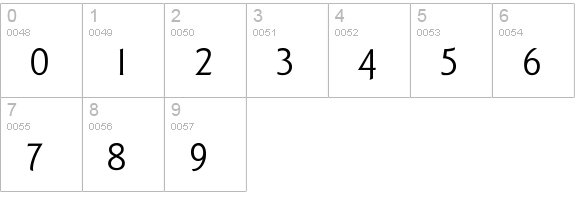
Goudy Sans* Book Font Details
Goudy Sans* Book is a comfortable, highly readable variant in the Goudy typeface family \xE2\x80\x94 well suited to long-form body text, articles, and editorial content.
Goudy Sans* Book font is a sophisticated and elegant typeface that exudes a timeless charm. With its clean lines and balanced proportions, this font is perfect for a wide range of design projects, from branding to editorial layouts. The classic yet modern feel of Goudy Sans* Book makes it a versatile choice for both print and digital applications. The best part? Goudy Sans* Book is available for free download at FontsMarket.com. This means you can easily access and use this stunning font in your projects without any cost. Don't miss out on the opportunity to elevate your designs with the beauty and grace of Goudy Sans* Book. Download it today and add a touch of sophistication to your creations.